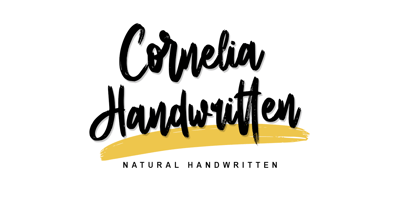
The Cornelia Handwritten Font is an excellent choice for designs that demand a personal, authentic, and genuinely charming aesthetic, perfect for conveying warmth and an intimate touch. Imagine it gracing the pages of personal journals, adding a sweet and inviting feel to personalized greeting cards, or bringing a distinctive, homemade vibe to craft fair signage. It's also perfectly suited for captivating social media graphics, unique branding for artisanal goods, and any project where you want to evoke a sense of individuality, human connection, and approachable creativity. With its characteristic hand-drawn forms and often slightly irregular appearance, the Cornelia Handwritten Font is ideal for projects that aim for visual appeal and a memorable, comforting impression.
What makes the Cornelia Handwritten Font truly exciting is its ability to infuse designs with immediate personality and a touch of bespoke artistry. It feels authentically hand-lettered, instantly giving your creations an intimate and exclusive quality. The subtle variations in its strokes or its charmingly uneven baseline ensure it stands out in a crowded visual landscape, making your designs truly memorable. This font is perfect for establishing a brand identity that feels approachable, imaginative, and genuinely unique, ensuring your visual communication is not just seen, but felt on a personal level. The Cornelia Handwritten Font Free Download offers a fantastic opportunity to bring this distinctive character to your creative work.
The Cornelia Handwritten Font family is typically designed to offer versatility while maintaining its signature charming and distinctive style. While specific family members can vary, you can often expect to find:
• Cornelia Handwritten Regular (the primary hand-drawn style)
• Cornelia Handwritten Bold (for added emphasis on titles or key phrases)
• Cornelia Handwritten Light (for a more delicate touch)
• Cornelia Handwritten Slanted (or Italic, for a more dynamic lean)
• Cornelia Handwritten Alternates/Ligatures (often including stylistic alternates, ligatures, or swashes to enhance the natural handwritten look and provide creative variations)
These variations provide flexibility for different design applications, allowing you to create engaging visual hierarchies and maintain a consistent, charming aesthetic across all your projects.